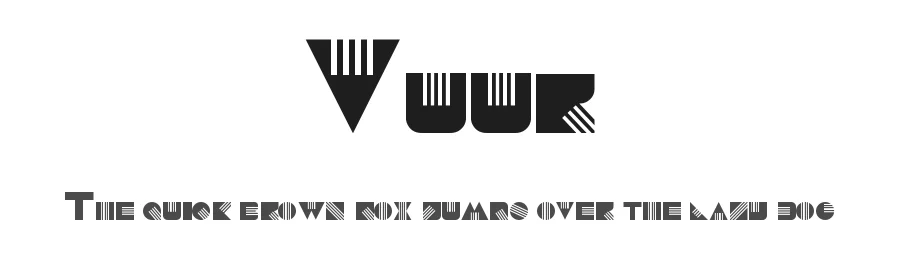
About Cross Screw Font
Cross Screw is a decorative font designed by Fadly Baidowy. It includes 102 glyphs, a regular weight, TTF (TrueType) format, and 94 languages. Cross Screw is free to download; check the license details on this page before commercial use. Decorative fonts like Cross Screw work best for logos, posters, packaging, and standout headlines.
Cross Screw Font is a decorative font that shines as a display or heading face. Pair it with a clean sans-serif or serif font for body text β the contrast creates a clear hierarchy while the two styles stay balanced and easy to read.
Cross Screw Font
Cross Screw Font is a decorative typeface by Fadly Baidowy, ideal for logos, invitations, branding, and creative projects.